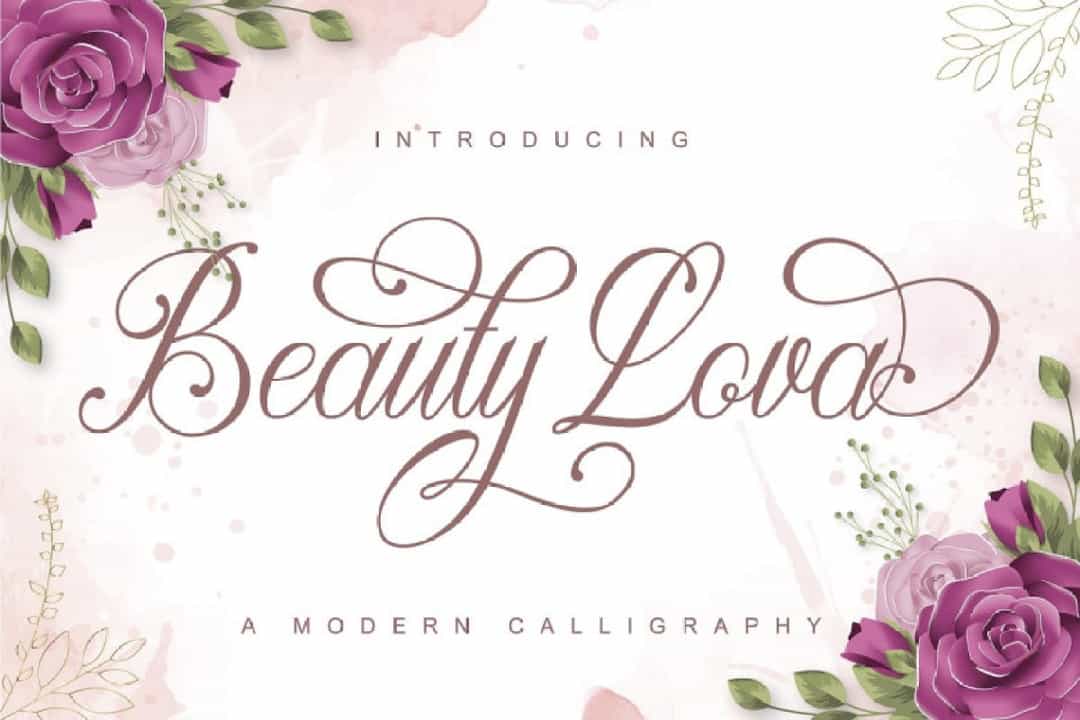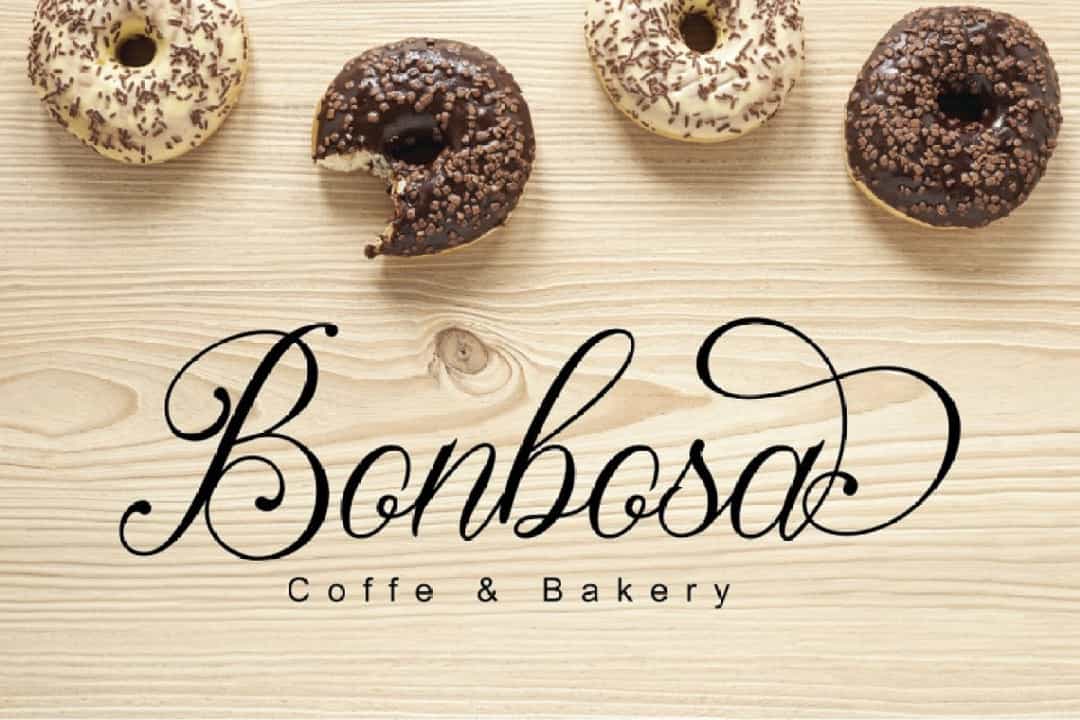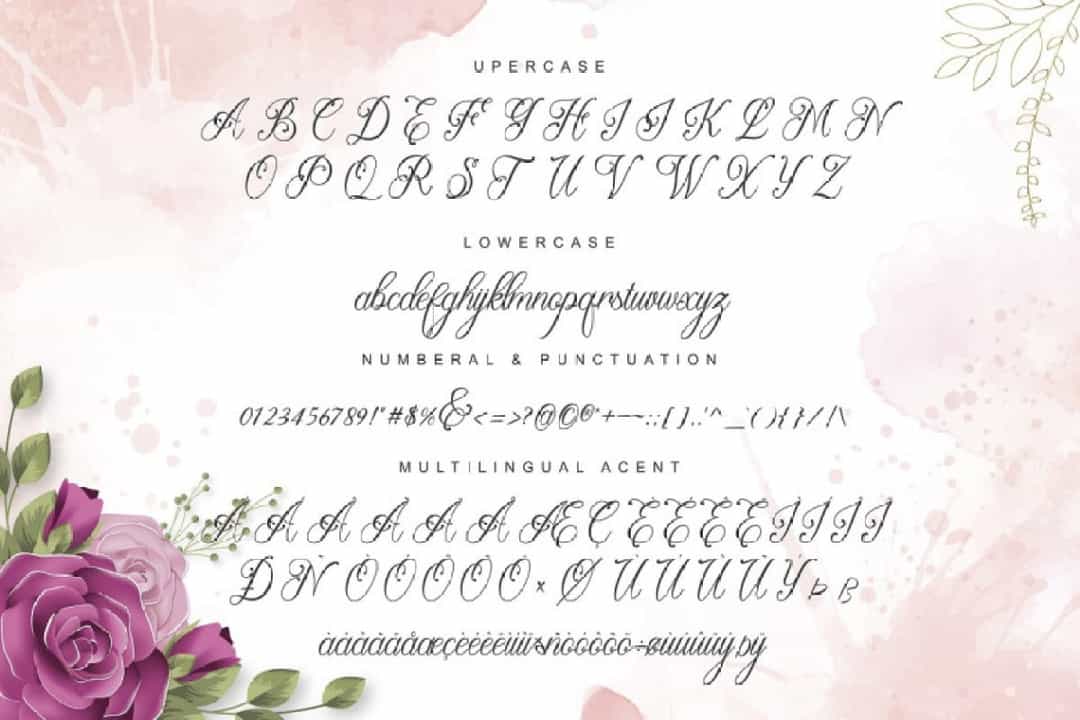
Beauty Love is an elegant calligraphy script font designed to take every crafting idea to the next level. PUA encoded Mentari provides access to decorative effects quickly! Plus it comes packed with swashes that make creating decorative effects effortless!